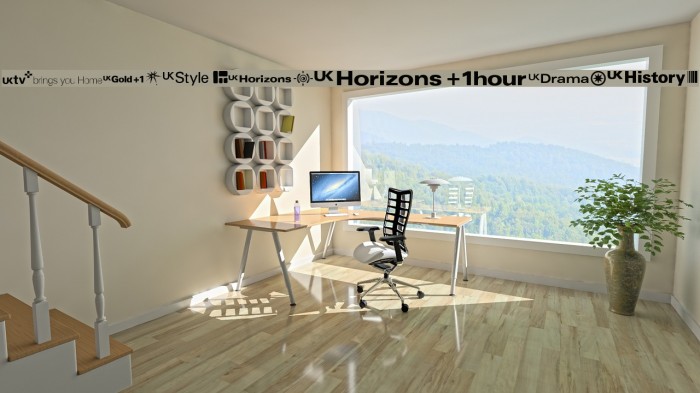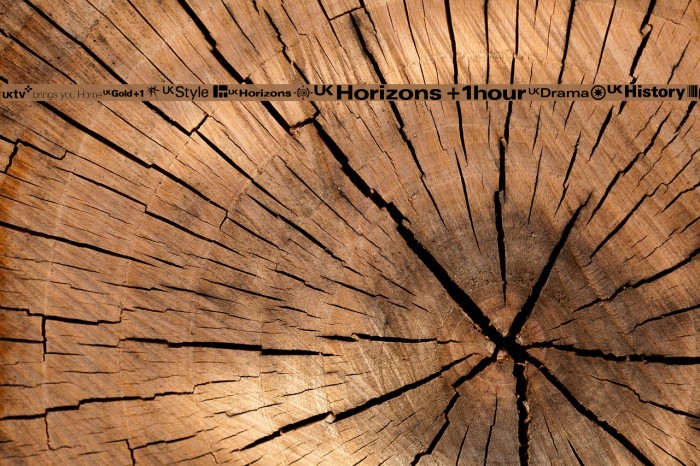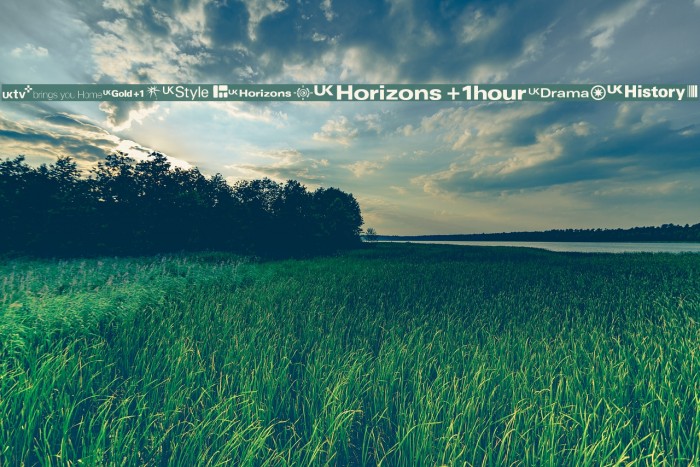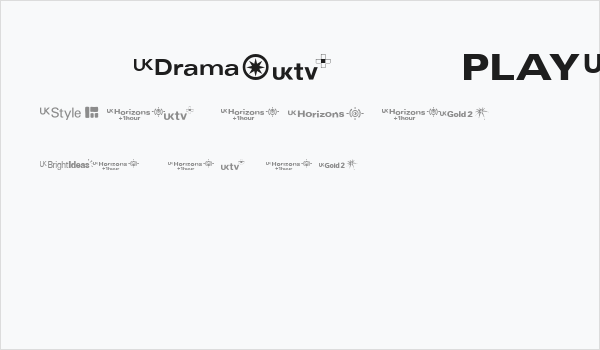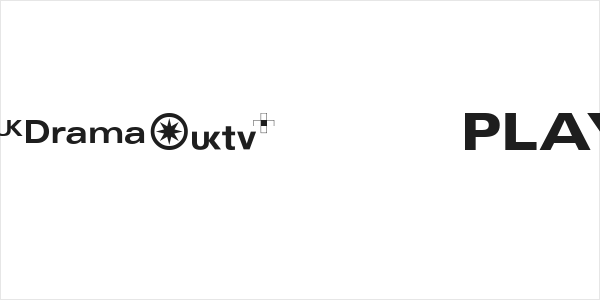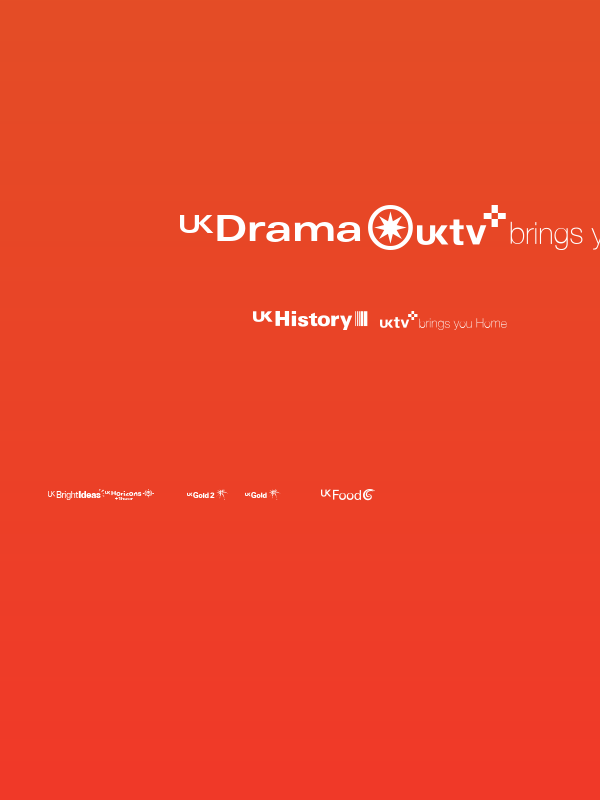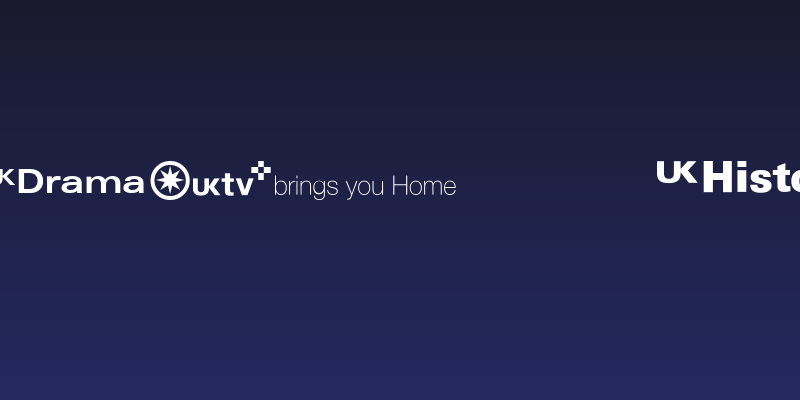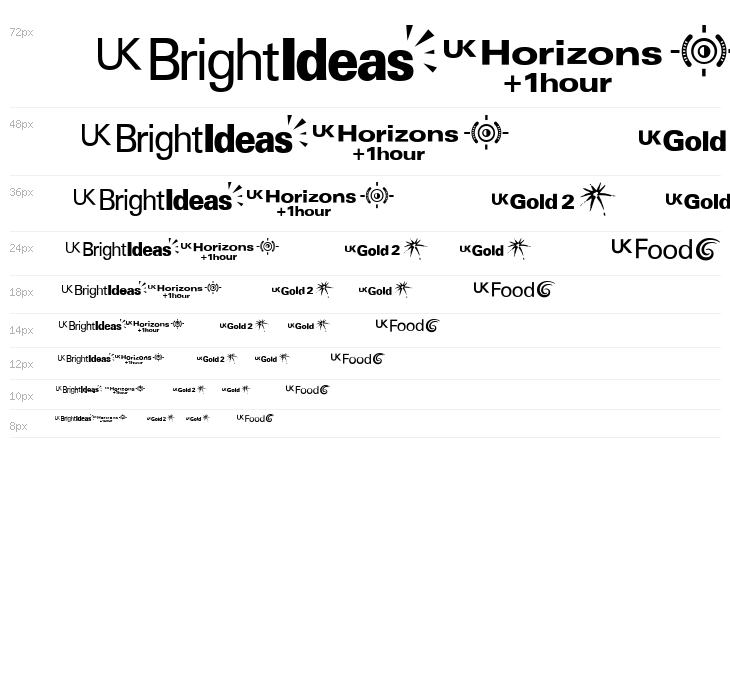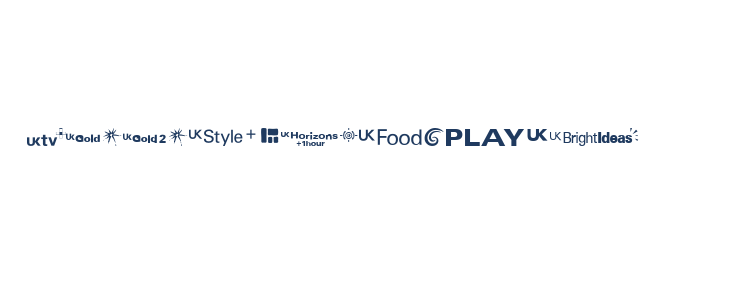
UKtv Family Logos Font
UKtv Family Logos Description
This font features a clean and modern design with a mix of bold and regular weights. It combines both serif and sans-serif elements, offering a versatile and contemporary look. The characters are well-spaced, providing clear readability. The font includes a variety of styles, from bold and impactful to more subtle and refined, making it suitable for different branding needs. The use of geometric shapes and consistent line thickness adds to its modern appeal.
Use CaseLogos, Branding, Advertising
Proposed ProjectsIdeal for branding, logo design, advertising campaigns, and digital media projects that require a modern and clean aesthetic.